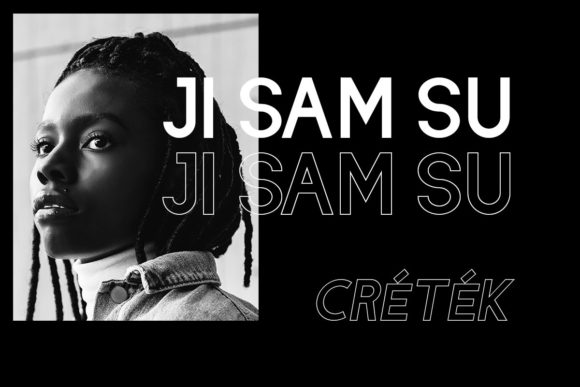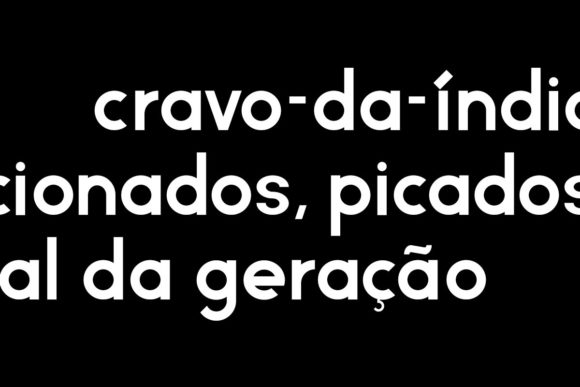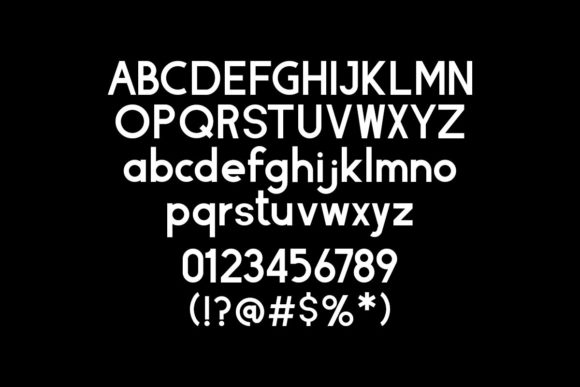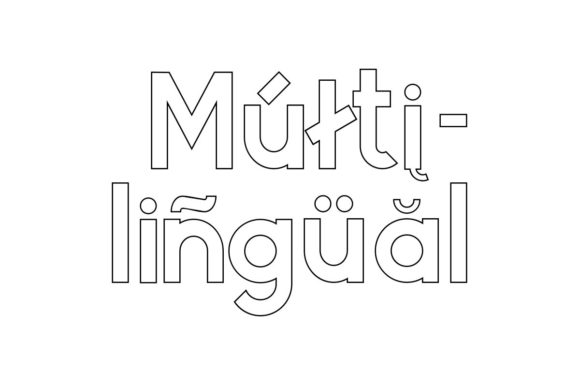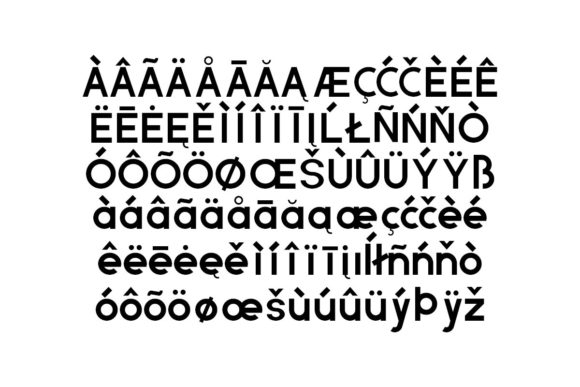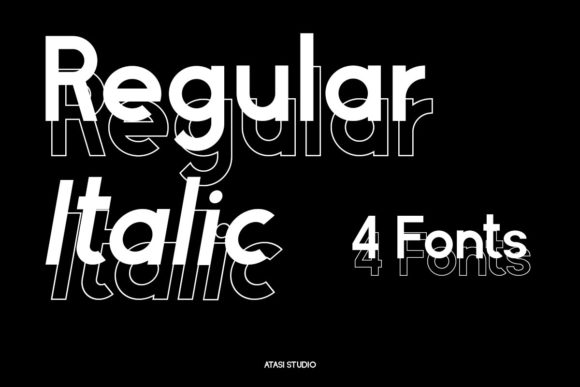
Cumisans Font: Elevate Your Design with a Cool and Fun Sans Serif Font
Are you tired of using the same old fonts in your design projects? Look no further than Cumisans Font, a cool and fun sans serif font that’s sure to make your designs stand out. With its unique style and versatility, Cumisans Font is the perfect addition to any designer’s toolkit.
What is Cumisans Font?
Cumisans Font is a sans serif font that’s designed to add a touch of fun and personality to your designs. Its unique style is characterized by clean lines, simple shapes, and a playful flair. Whether you’re working on a graphic design project, crafting a handmade card, or creating digital content, Cumisans Font is the perfect choice.
Key Features of Cumisans Font
- Unique Style: Cumisans Font has a one-of-a-kind style that’s sure to grab attention.
- Versatile: This font can be used in a variety of design projects, from digital content to print materials.
- Easy to Read: Cumisans Font is clear and easy to read, making it perfect for body text and headings.
- Fun and Playful: This font adds a touch of fun and personality to any design project.
Benefits of Using Cumisans Font
So why choose Cumisans Font for your design projects? Here are just a few benefits of using this amazing font:
- Stand Out from the Crowd: With Cumisans Font, you can create designs that are truly unique and eye-catching.
- Perfect for Creative Projects: This font is ideal for designers, crafters, and artists who want to add a touch of personality to their work.
- Easy to Pair with Other Fonts: Cumisans Font pairs well with a variety of other fonts, making it easy to create stunning font combinations.
- Great for Digital and Print Materials: Whether you’re creating digital content or print materials, Cumisans Font is the perfect choice.
How to Use Cumisans Font in Your Design Projects
Using Cumisans Font in your design projects is easy. Here are a few tips to get you started:
- Pair with Other Fonts: Try pairing Cumisans Font with other sans serif fonts or script fonts for a unique look.
- Use for Headings and Body Text: Cumisans Font is clear and easy to read, making it perfect for both headings and body text.
- Add a Pop of Color: Use Cumisans Font in a bold, bright color to add a pop of personality to your design.
- Experiment with Different Sizes: Try using Cumisans Font in different sizes to create visual interest and add emphasis to your design.
Who is Cumisans Font for?
Cumisans Font is perfect for designers, crafters, and artists who want to add a touch of fun and personality to their work. This font is ideal for:
- Graphic Designers: Cumisans Font is perfect for graphic designers who want to create stunning visual content.
- Crafters: This font is ideal for crafters who want to add a personal touch to their handmade cards and projects.
- Digital Content Creators: Cumisans Font is great for digital content creators who want to add a touch of personality to their blog posts, social media graphics, and more.
In conclusion, Cumisans Font is a cool and fun sans serif font that’s sure to elevate your design projects. With its unique style, versatility, and ease of use, this font is perfect for designers, crafters, and artists who want to add a touch of personality to their work. So why wait? Try Cumisans Font today and see the difference it can make in your designs!